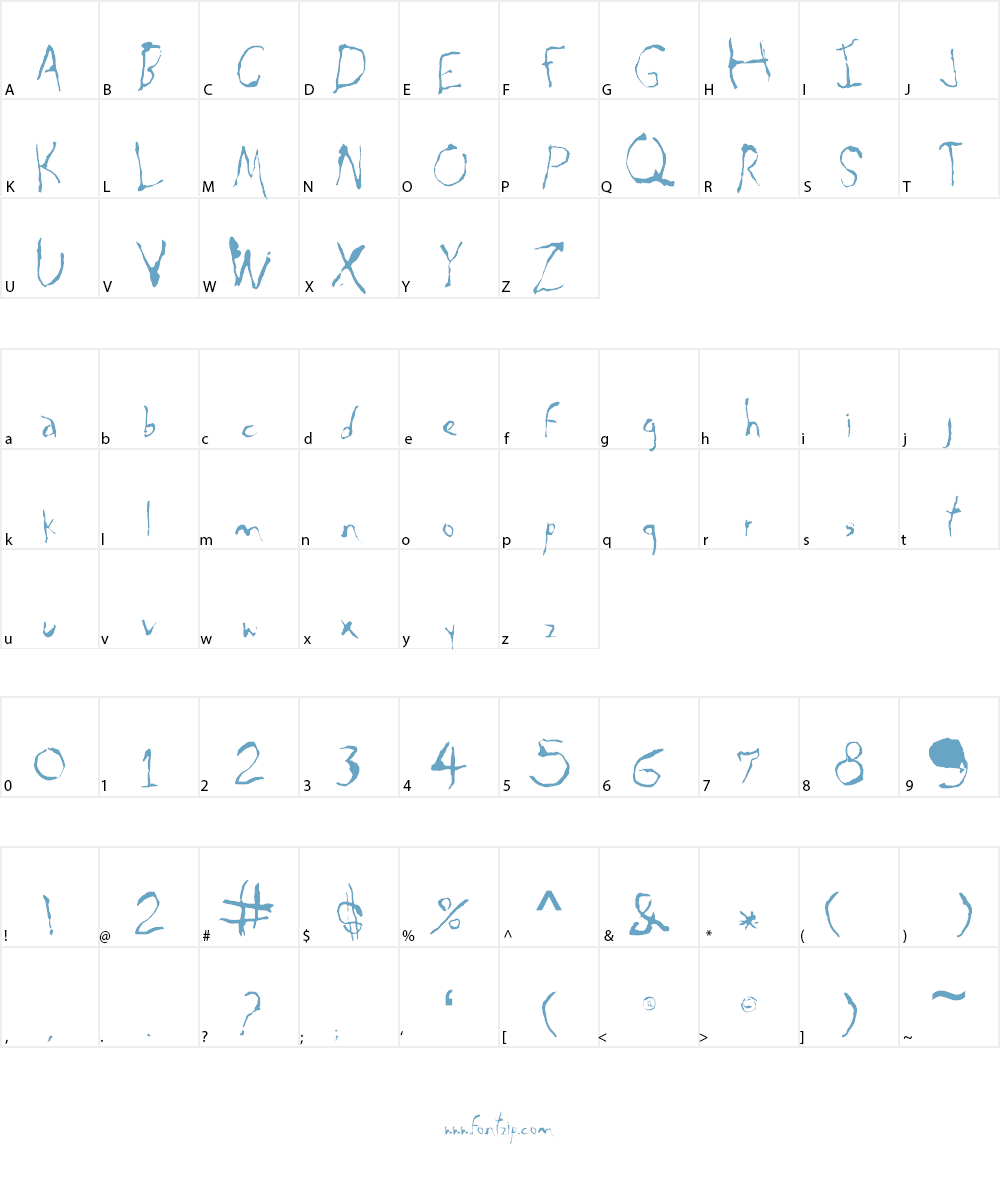
This is an ilustrated font. Made with brush and ink, Gim will work great even as a body text. Try to use the capitals as the first letters of the words. or whatever you want. It looks really good at big sizes too.